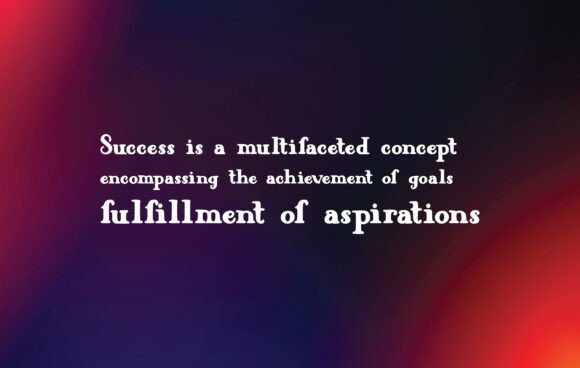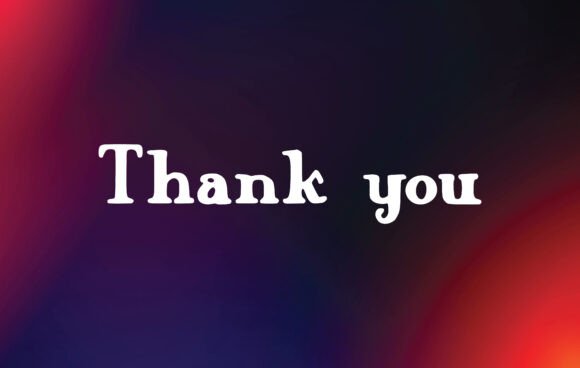
Introduction to Keyla Font
Have you ever stumbled upon a design that perfectly captures the essence of your creative vision? For designers, this moment is pure magic. It’s the moment when all the elements come together, and your idea shines through. For those who have experienced this, you know how crucial the right design resources can be. This is where the Keyla Font comes in – a stunning, high-quality handwritten font that can elevate your creative projects to new heights.
As a valuable addition to your design arsenal, the Keyla Font offers a unique and elegant touch to your work. Whether you’re crafting eye-catching logos, branding, or quotes, this font is sure to make a lasting impression. With its transparent background and free download availability, it’s an accessible design resource that can be used across various creative projects.
Key Features of Keyla Font
- High-quality design: Keyla Font is a premium font that offers a unique and stylish look, perfect for creative projects.
- High-resolution design: The font is designed with high-resolution images in mind, making it perfect for use in print and digital media.
- Unique characteristics: Keyla Font features a unique blend of modern and vintage elements, making it an excellent choice for designers looking to add some personality to their creative projects.
- Large character set: The font includes a large character set, including uppercase and lowercase letters, numbers, and punctuation marks, making it a versatile design resource.
Honest Review: Keyla Font
I recently had the chance to work with the Keyla Font, and I must say it’s been a great addition to my design resource collection. The free download was a nice touch, making it easy to integrate into my creative project.
What works well: ✨ The Keyla Font has a modern and sleek design, making it perfect for a variety of projects. The high-quality vectors are crisp and clear, even when scaled up or down. The transparent background option is also a huge plus, giving me the flexibility to place the text on any background without worrying about a distracting outline.
What doesn’t work so well: ⚠️ While the Keyla Font is generally easy to use, I did find that the font is a bit limited in terms of style options. There aren’t as many variations as I would like, which can make it feel a bit one-dimensional at times.
Overall, I’m really impressed with the Keyla Font. It’s a solid design resource that’s easy to use and produces high-quality results. While it may not be the most versatile font out there, it’s definitely worth checking out for any creative project.
- High-quality vectors
- Modern and sleek design
Keyla Font
Tips for Getting the Most Out of Keyla Font
Keyla Font is a high-quality design resource that can add a touch of elegance to your creative project. To get the most out of it, use it in conjunction with a transparent background to create a seamless design. You can also experiment with different font sizes and colors to create a unique look.
Keyla Font is a versatile font that can be used in a variety of design projects, including business cards, brochures, and websites. It’s particularly well-suited for designs that require a clean and modern look, such as tech startups or fashion brands.